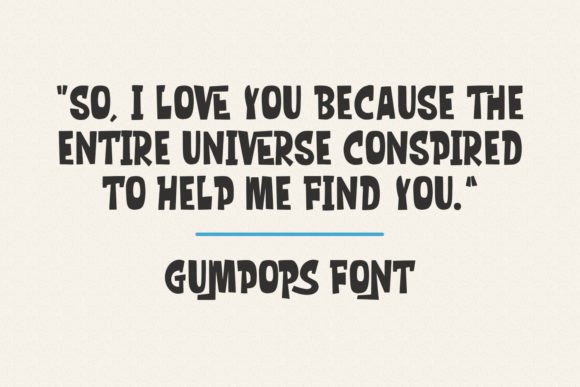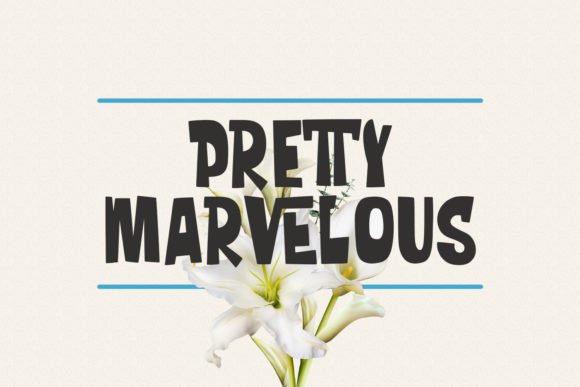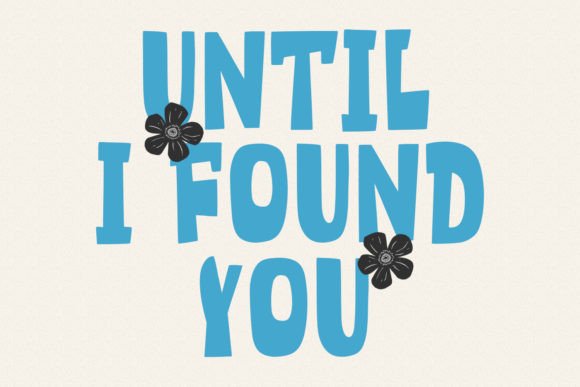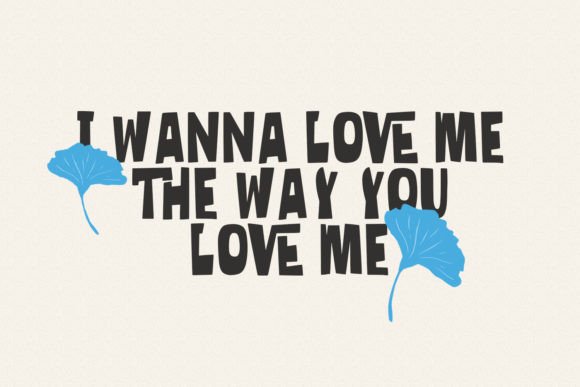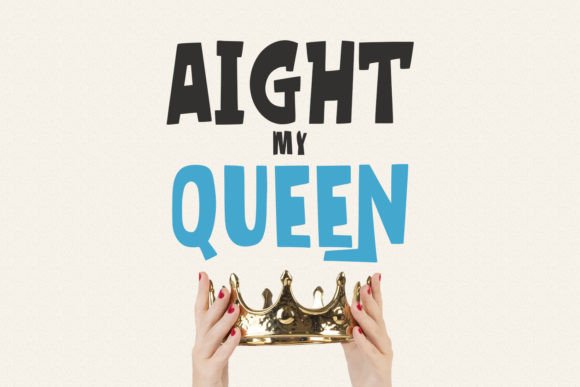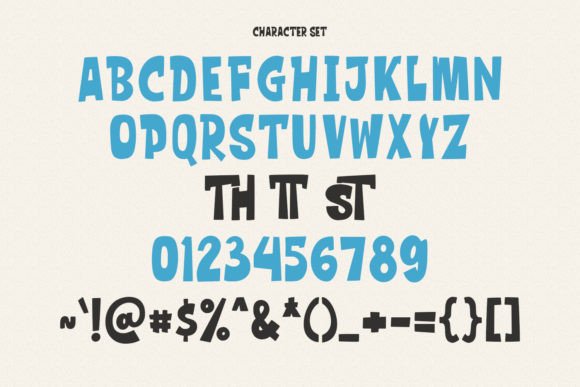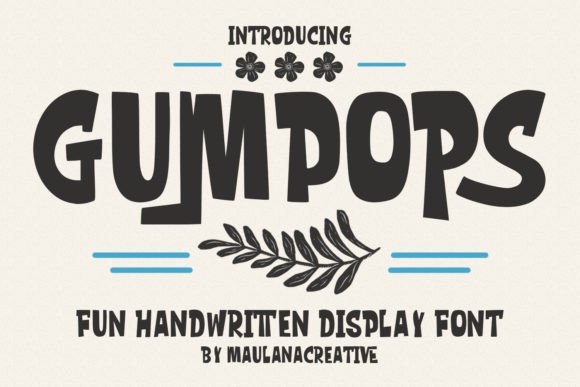
Gumpops Font: The Cute and Friendly Display Font for Your Creative Projects
Are you a designer or crafter looking for a font that can add a touch of whimsy and friendliness to your creations? Look no further than Gumpops Font! This adorable display font is perfect for a wide range of projects, from branding and advertising to crafting and DIY tutorials. In this article, we’ll take a closer look at Gumpops Font and explore its features, benefits, and uses.
What is Gumpops Font?
Gumpops Font is a cute and friendly display font designed to bring a smile to your face. Its playful and approachable style makes it perfect for projects that require a personal touch. Whether you’re creating a logo, heading, or title, Gumpops Font is sure to make your text stand out.
Key Features of Gumpops Font
So, what makes Gumpops Font so special? Here are some of its key features:
• Cute and Friendly Design: Gumpops Font has a unique and charming design that’s sure to capture the hearts of your audience.
• High-Quality Letters: The font features high-quality letters with a clean and crisp design, making it perfect for large and small sizes.
• Easy to Read: Despite its playful design, Gumpops Font is easy to read, even at small sizes.
• Versatile: Gumpops Font can be used for a wide range of projects, from digital to print.
Benefits of Using Gumpops Font
So, why should you choose Gumpops Font for your projects? Here are some of its benefits:
• Adds a Personal Touch: Gumpops Font adds a personal touch to your projects, making them more relatable and engaging.
• Perfect for Branding: The font’s unique design makes it perfect for branding and advertising projects, helping you to stand out from the competition.
• Great for Crafting and DIY Tutorials: Gumpops Font is perfect for crafting and DIY tutorials, adding a touch of whimsy and fun to your instructions.
• Easy to Pair with Other Fonts: The font pairs well with other fonts, making it easy to create a cohesive look.
Uses of Gumpops Font
So, what can you use Gumpops Font for? The possibilities are endless! Here are some ideas to get you started:
• Branding and Advertising: Use Gumpops Font to create eye-catching logos, headings, and titles for your brand.
• Crafting and DIY Tutorials: Add a touch of whimsy to your crafting and DIY tutorials with Gumpops Font.
• Digital and Print Projects: Use Gumpops Font for digital and print projects, such as brochures, flyers, and posters.
• Social Media Graphics: Create engaging social media graphics with Gumpops Font.
Tips for Using Gumpops Font
Here are some tips for using Gumpops Font effectively:
• Use it as a Display Font: Gumpops Font is perfect for use as a display font, making it ideal for headings and titles.
• Pair it with Other Fonts: Pair Gumpops Font with other fonts to create a cohesive look.
• Experiment with Colors: Experiment with different colors to find the perfect match for your project.
In conclusion, Gumpops Font is a cute and friendly display font that’s perfect for a wide range of creative projects. Its playful and approachable design makes it ideal for adding a personal touch to your branding, advertising, crafting, and DIY tutorials. With its high-quality letters, ease of use, and versatility, Gumpops Font is sure to become a valuable asset to your font library.